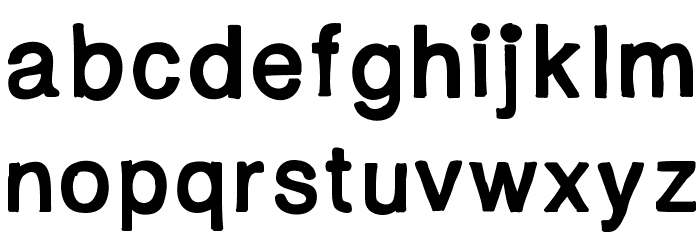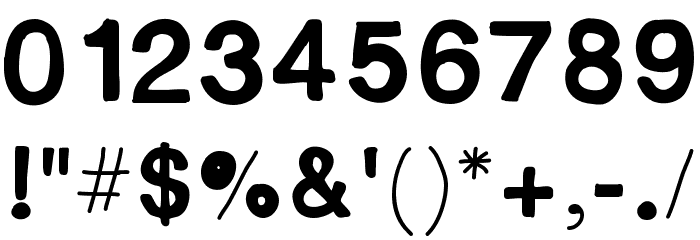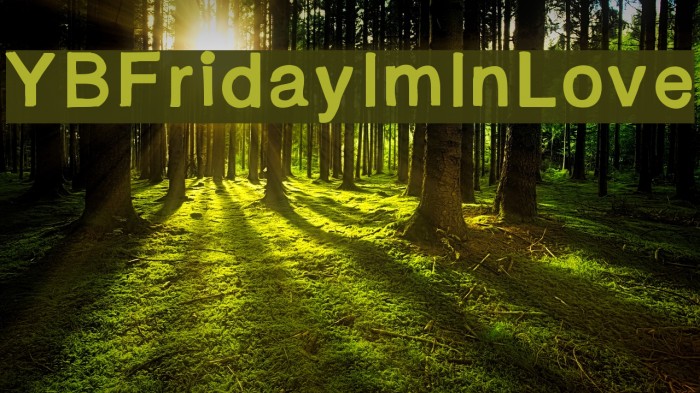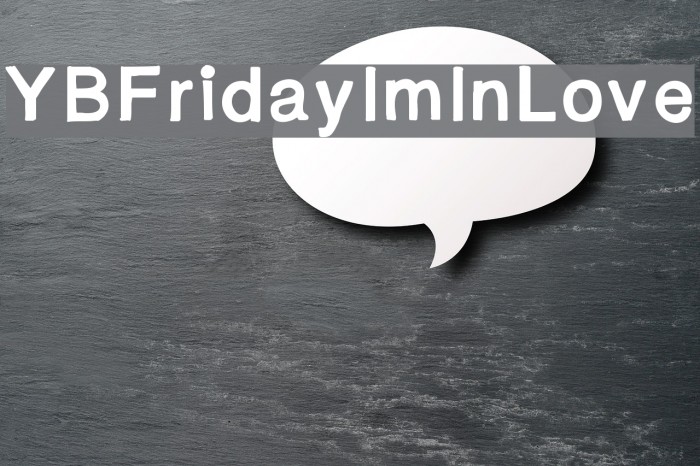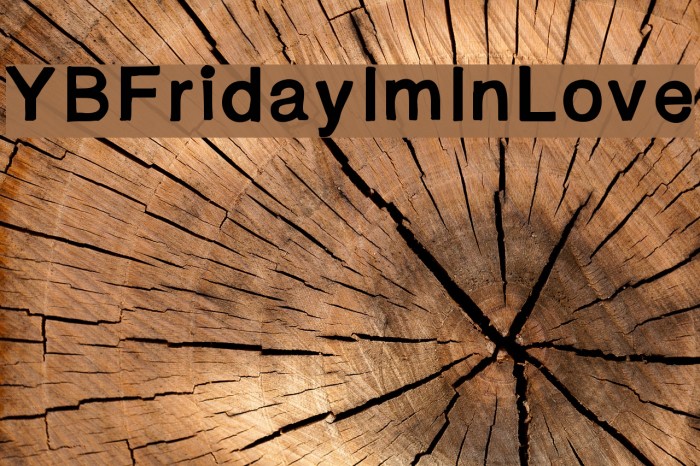
YBFridayImInLove Font
This font features a bold and playful design with rounded edges and a slightly condensed appearance. The uppercase letters are uniform in height and width, giving a balanced and cohesive look. The lowercase letters maintain a similar style, with a friendly and approachable feel. The numerals are clear and easy to read, matching the overall aesthetic of the font. Special characters are well-integrated, maintaining the same rounded and bold characteristics. This font is versatile, suitable for various design projects that require a modern and informal touch.
A bold, rounded font with a playful and modern style.
- Proposed Projects: Ideal for children's books, playful branding, casual invitations, and social media graphics.